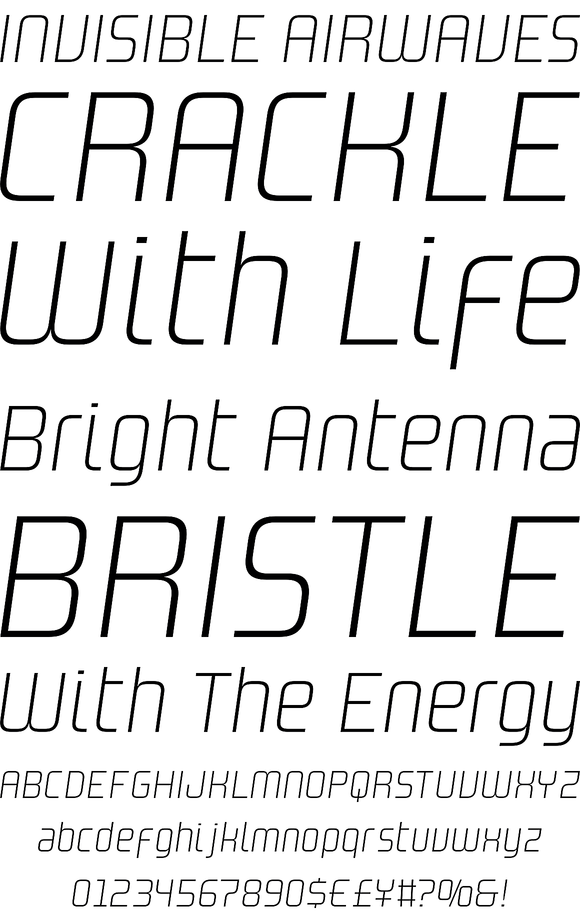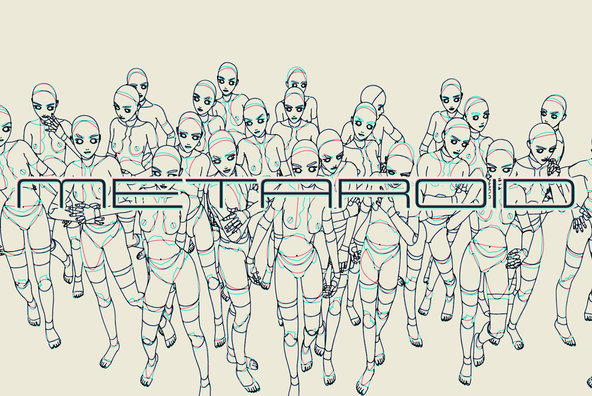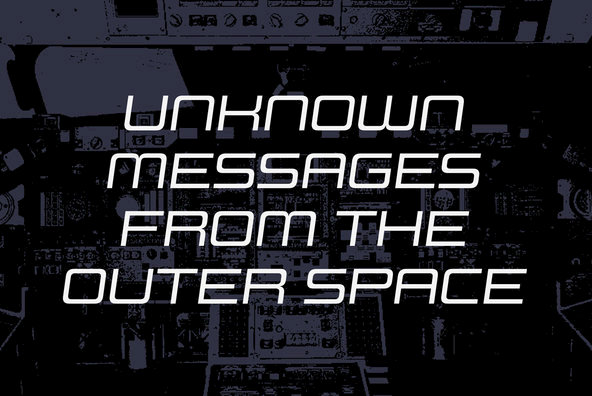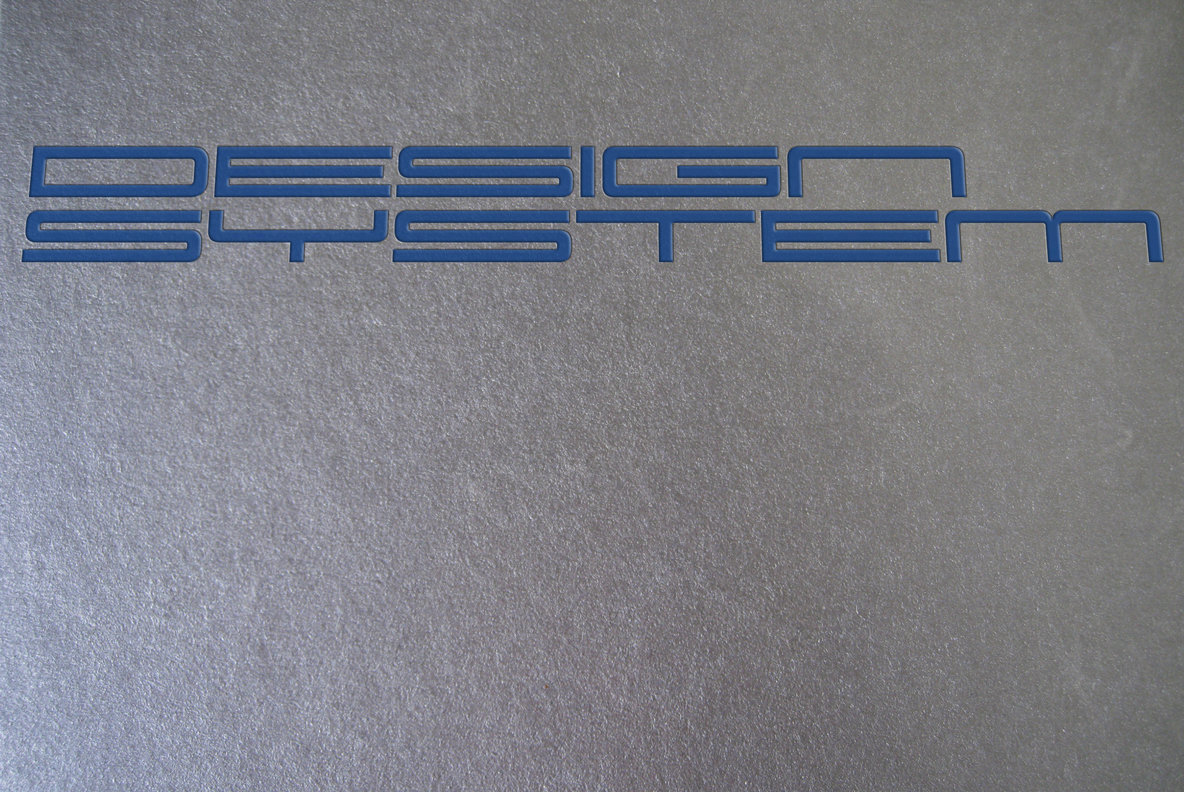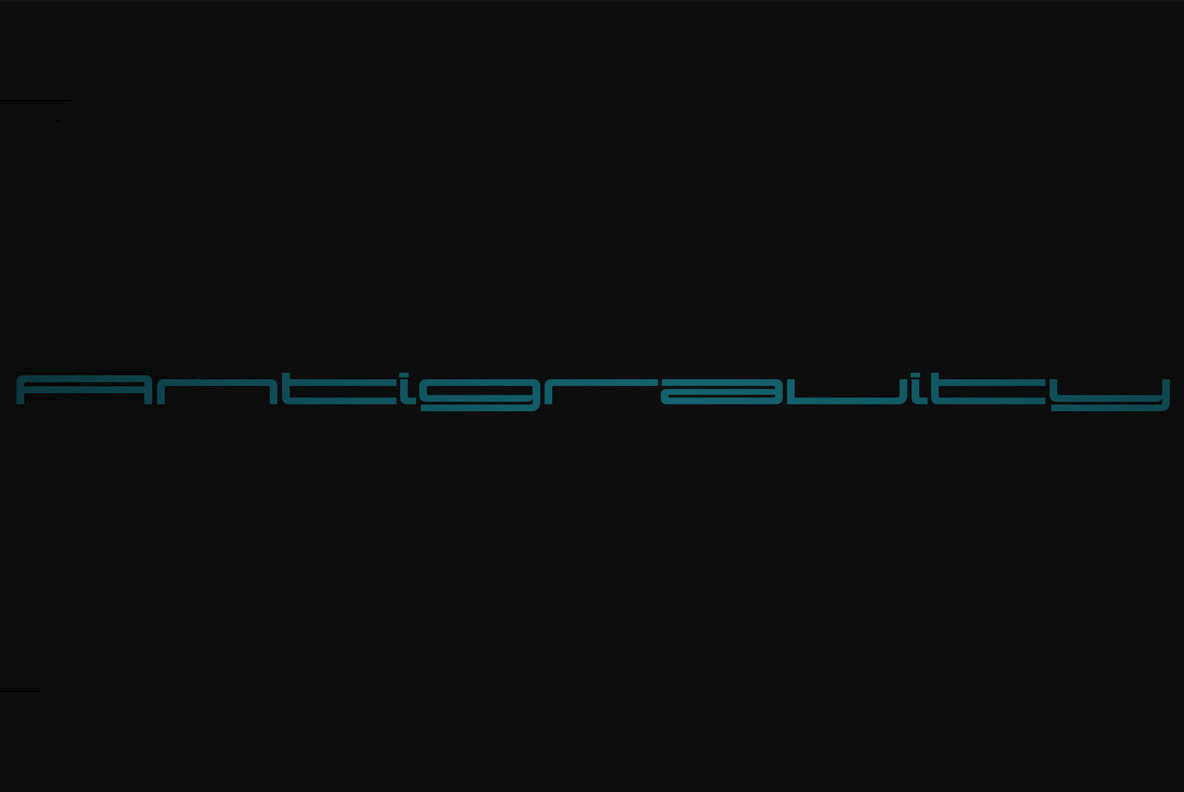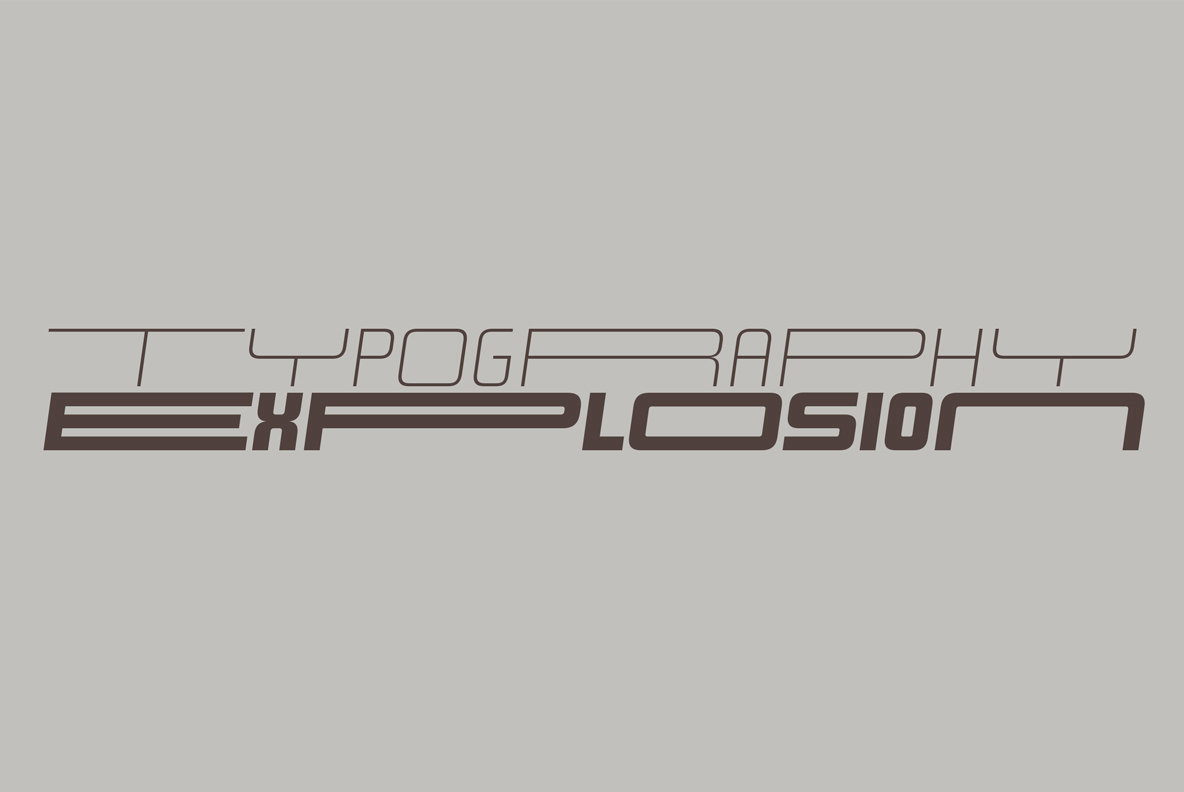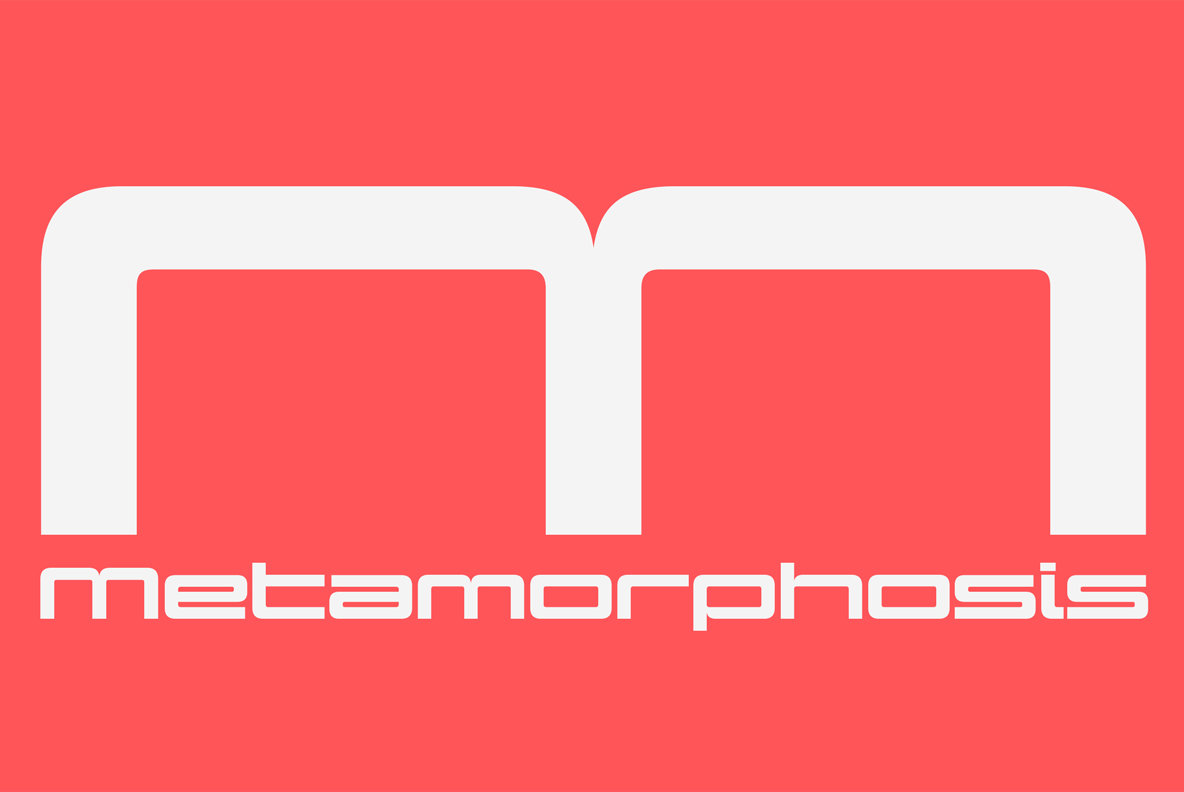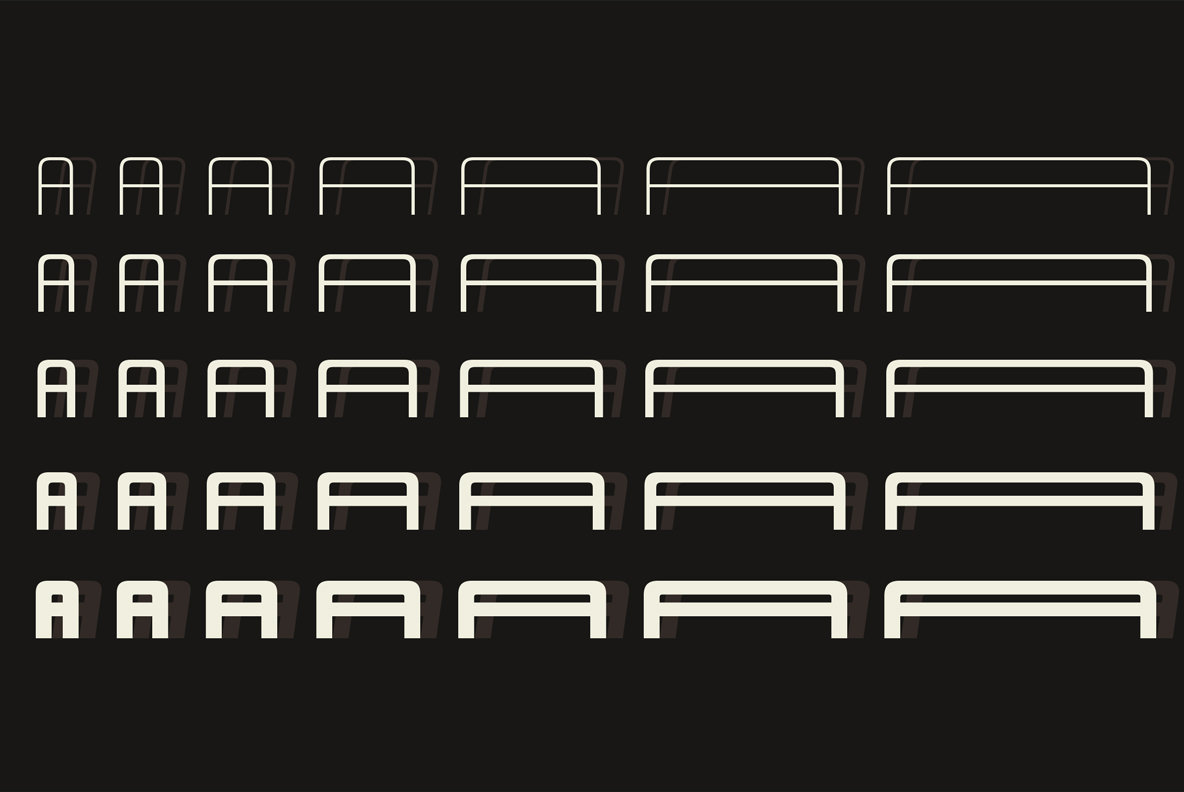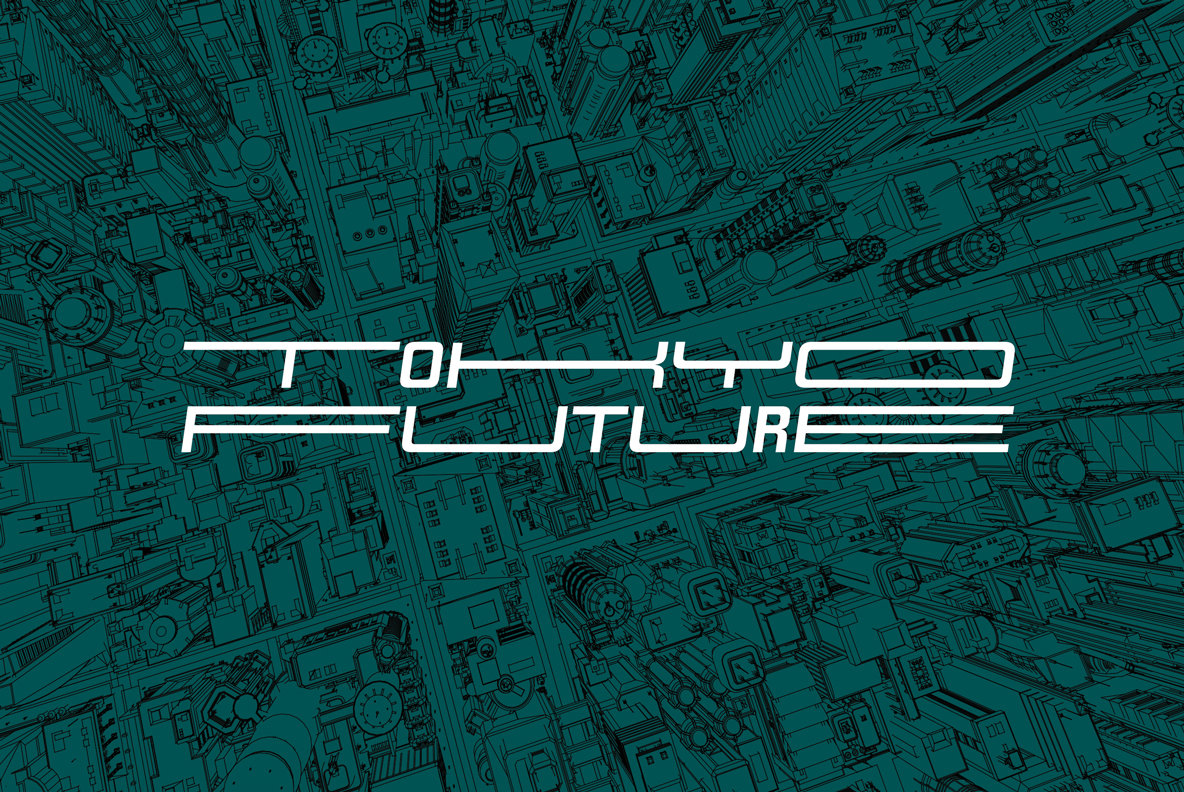
Design System
Design System is a great type system consisted of 5X7X2=70 font styles from 70s-style simple square sans to the widest style of all time that are best for titles, logo and text.
Design System is a great type system consisted of 5X7X2=70 font styles from 70s-style simple square sans to the widest style of all time that are best for titles, logo and text. Their simple form does not limit the target of design and can be used for any creative work. Additionally they all have been designed not to provide a feeling of strangeness when they are used in mixture each others.